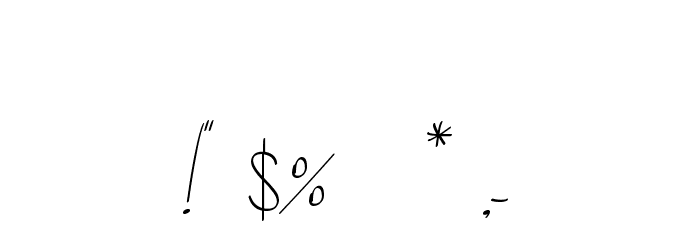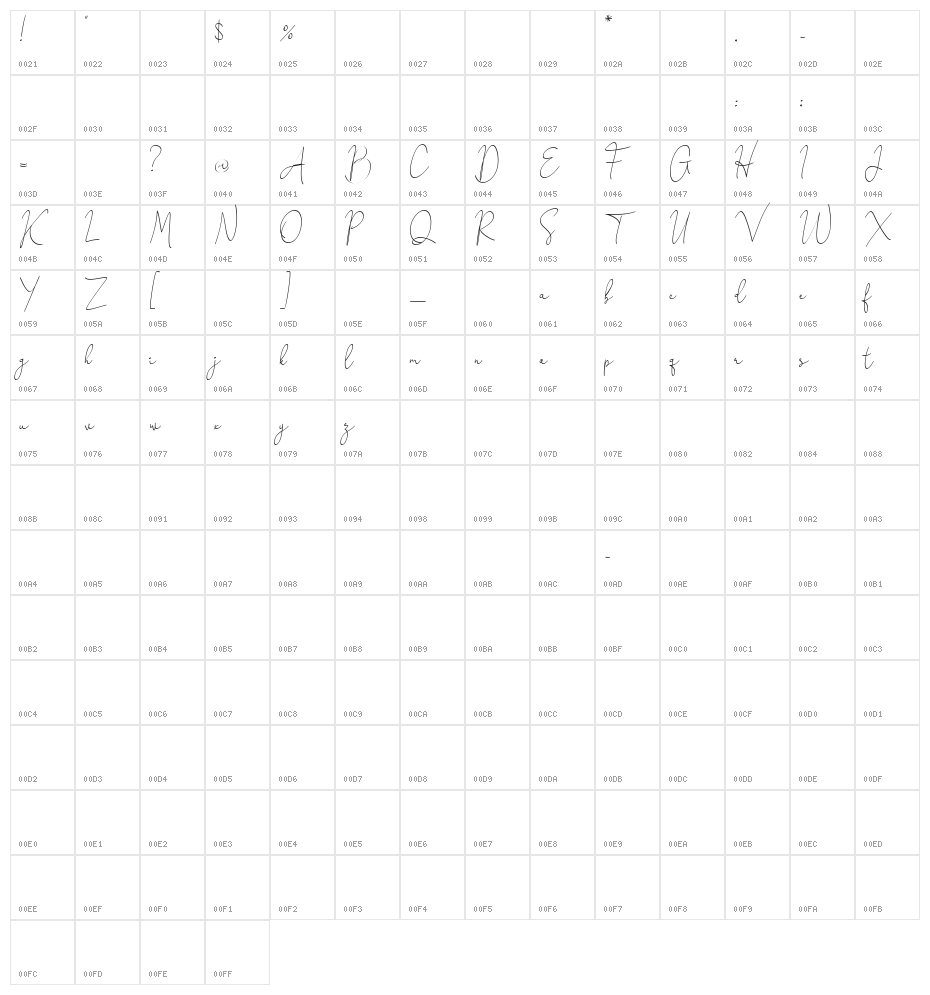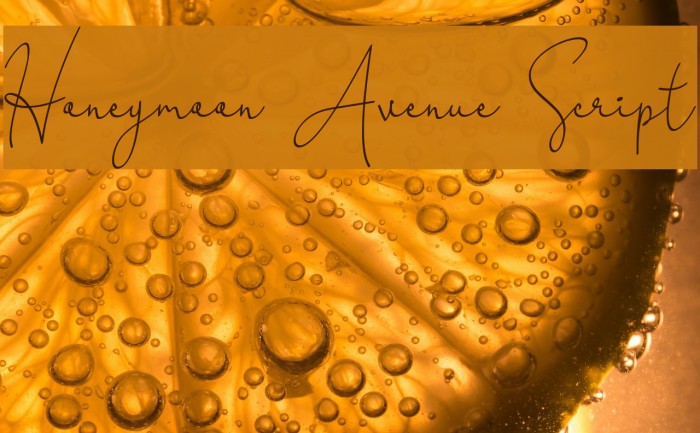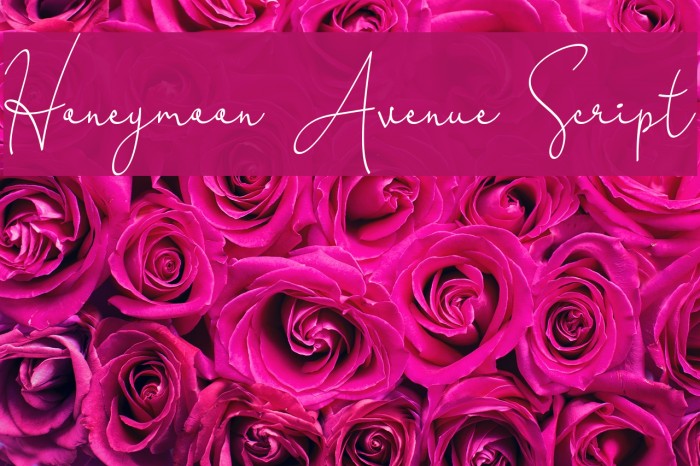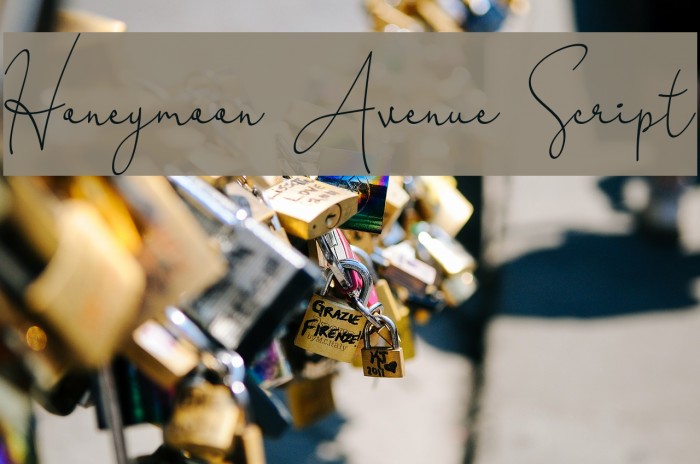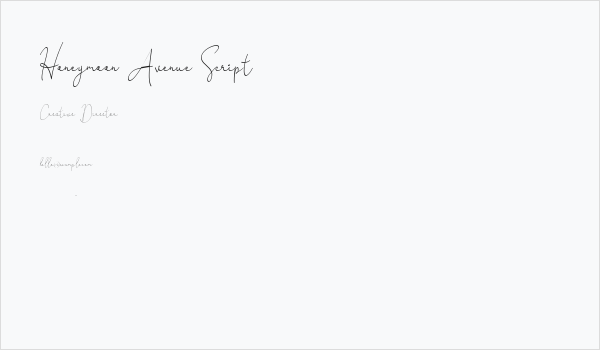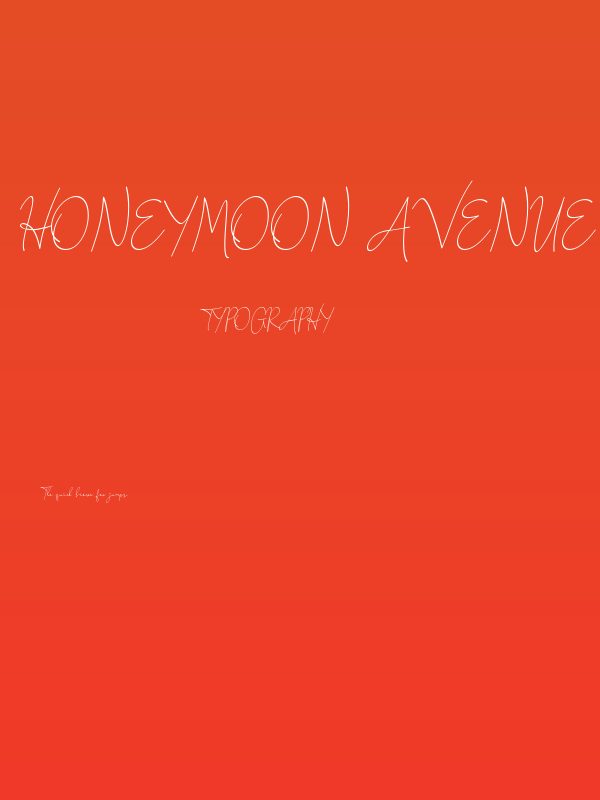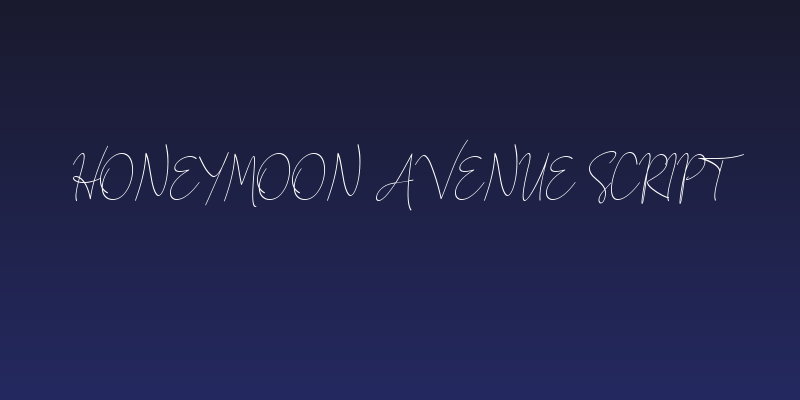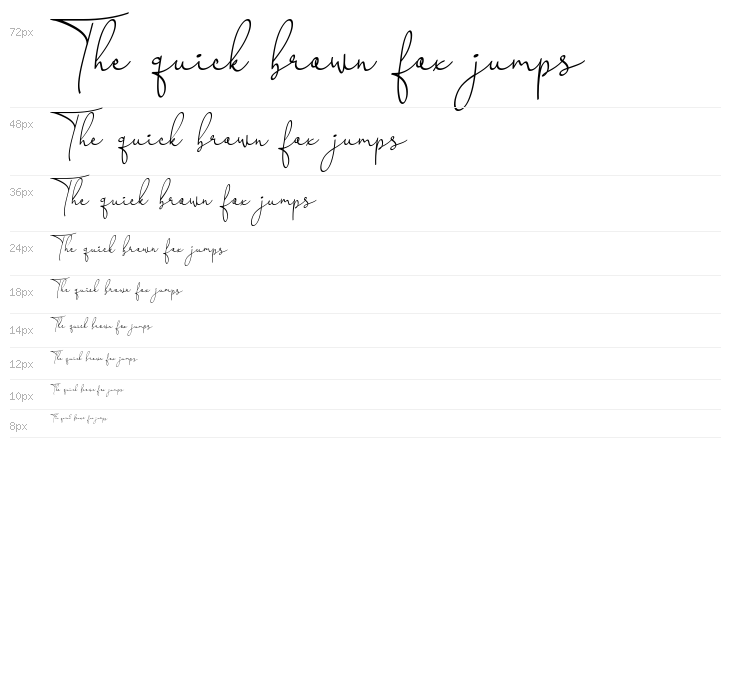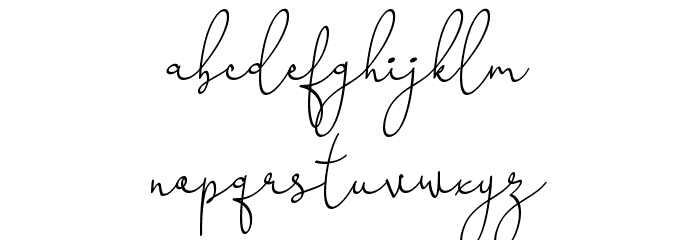
Honeymoon Avenue Script Font
Honeymoon Avenue Script Description
This elegant script font features a flowing, cursive style with delicate, thin strokes that convey a sense of grace and sophistication. The uppercase letters are tall and slender, with sweeping curves and loops that add a touch of whimsy. The lowercase letters maintain a consistent flow, enhancing the font's overall fluidity. The characters are slightly slanted, giving a handwritten appearance that is both personal and stylish. The special characters, including punctuation marks and symbols, are designed with the same attention to detail, ensuring a cohesive look across all text. This font is perfect for projects that require a touch of elegance and charm.
Overall StyleElegant